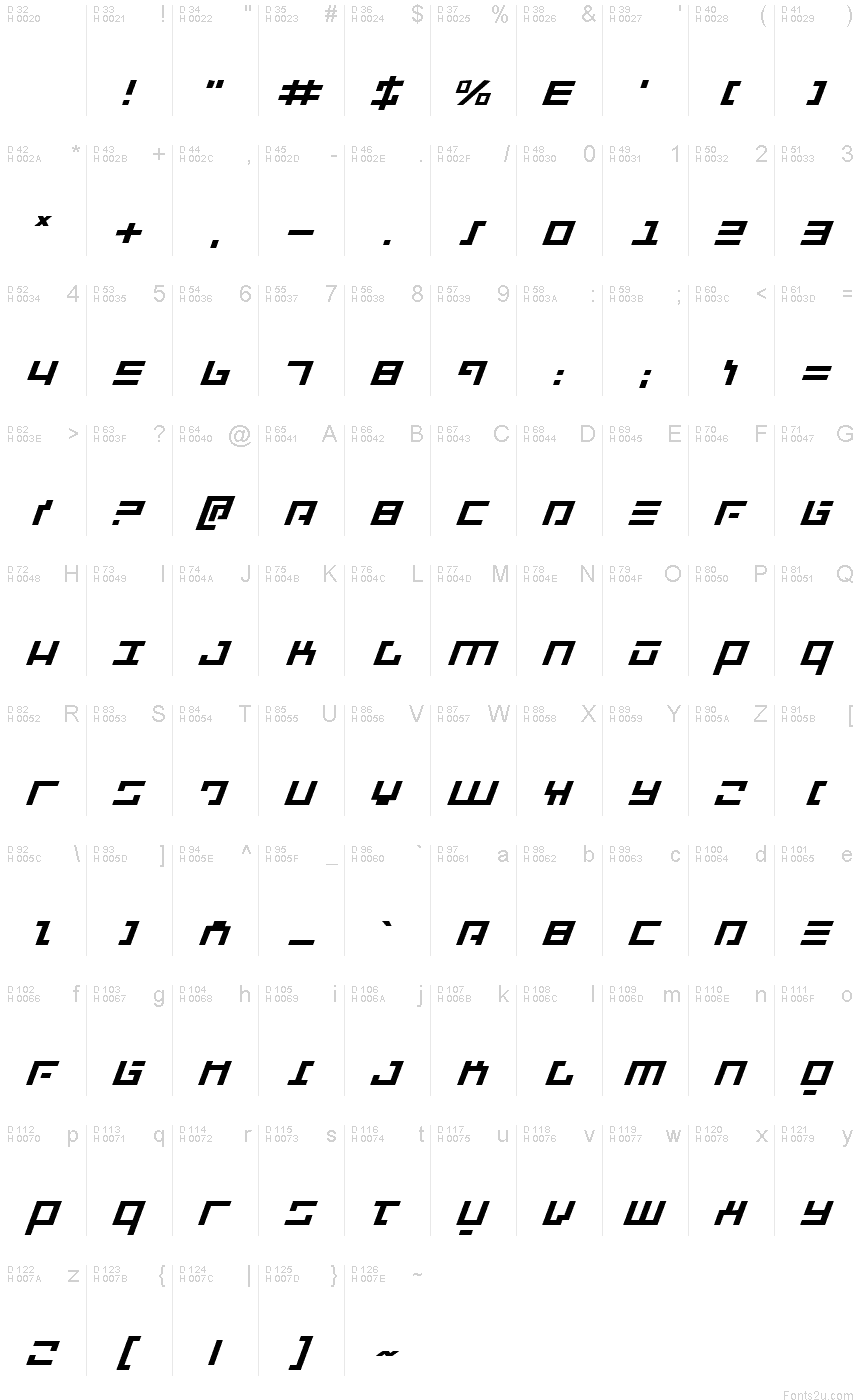
Repulsor Expanded Italic
A squarish techno font with some unique details for certain letters to set it apart. For information on commercial usage please visit www.iconian.commercial.html